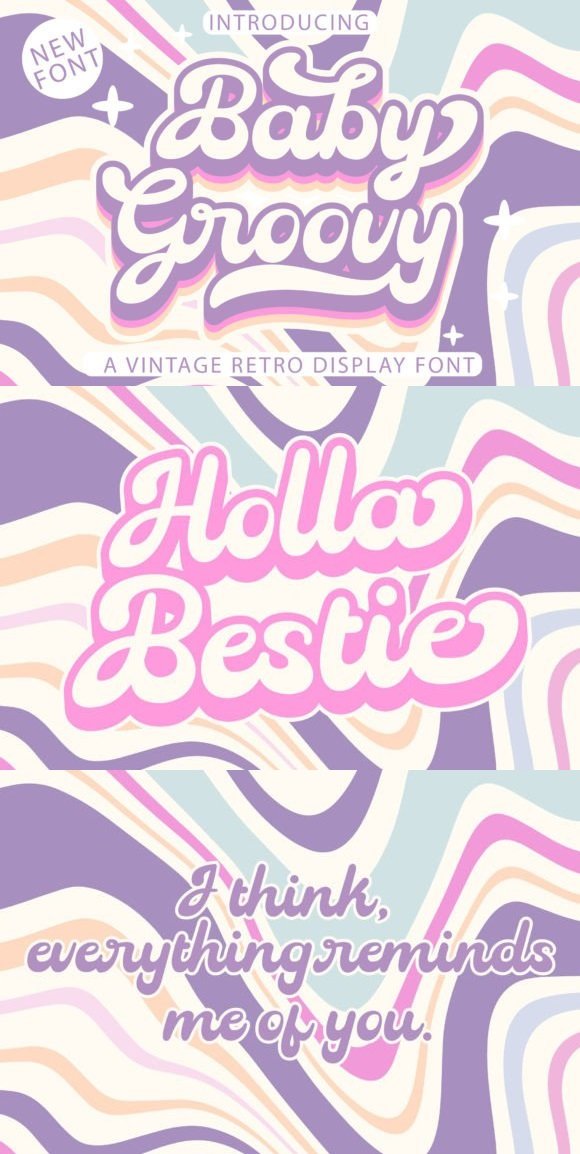
CF - Baby Groovy Font 93179536
Baby Groovy is a cool, vintage-style display font. Use it to add that special retro touch to any design idea! It can be used for logos, branding, invitations, stationery, wedding designs, social media posts, and much more!